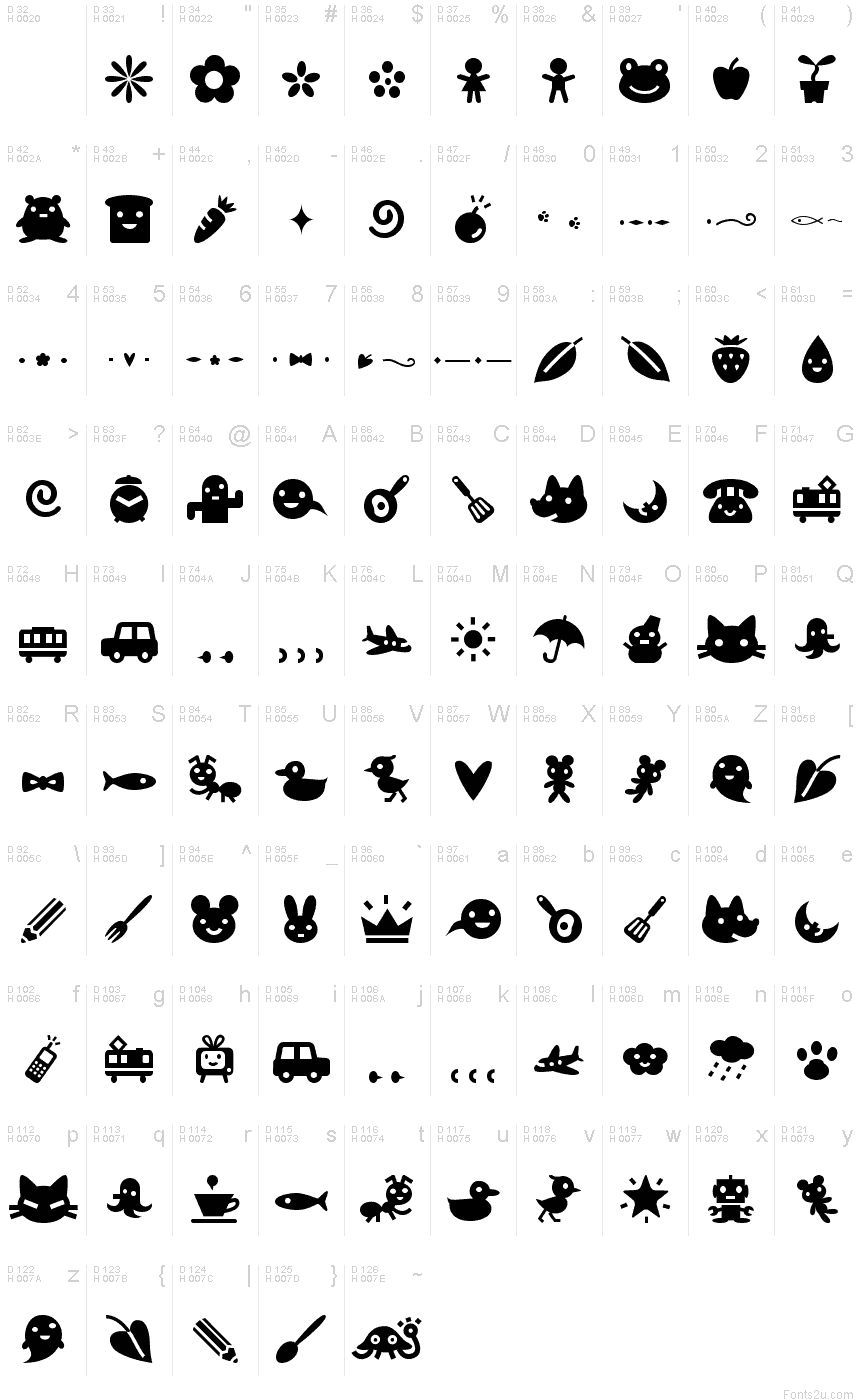
Efon
Efon font by Nan Sakurai is a free dingbat font that gives you bold, ready-made icons without hunting through stock sites. Each symbol—chunky moons, chatty cell phones, soft paw prints, rainy clouds—lands as a solid black silhouette with clean, rounded edges, so they stay legible even at tiny sizes. The shapes feel friendly and hand-cut, adding just enough personality while still reading clearly at a glance.
Using Efon, you can drop in quick icons for zines, classroom worksheets, stickers, simple infographics, app UI mockups, and playful social posts in seconds. This free font works beautifully as a visual accent alongside a clean sans serif; set the text small and let the Efon pictograms lead as bold markers or section dividers.